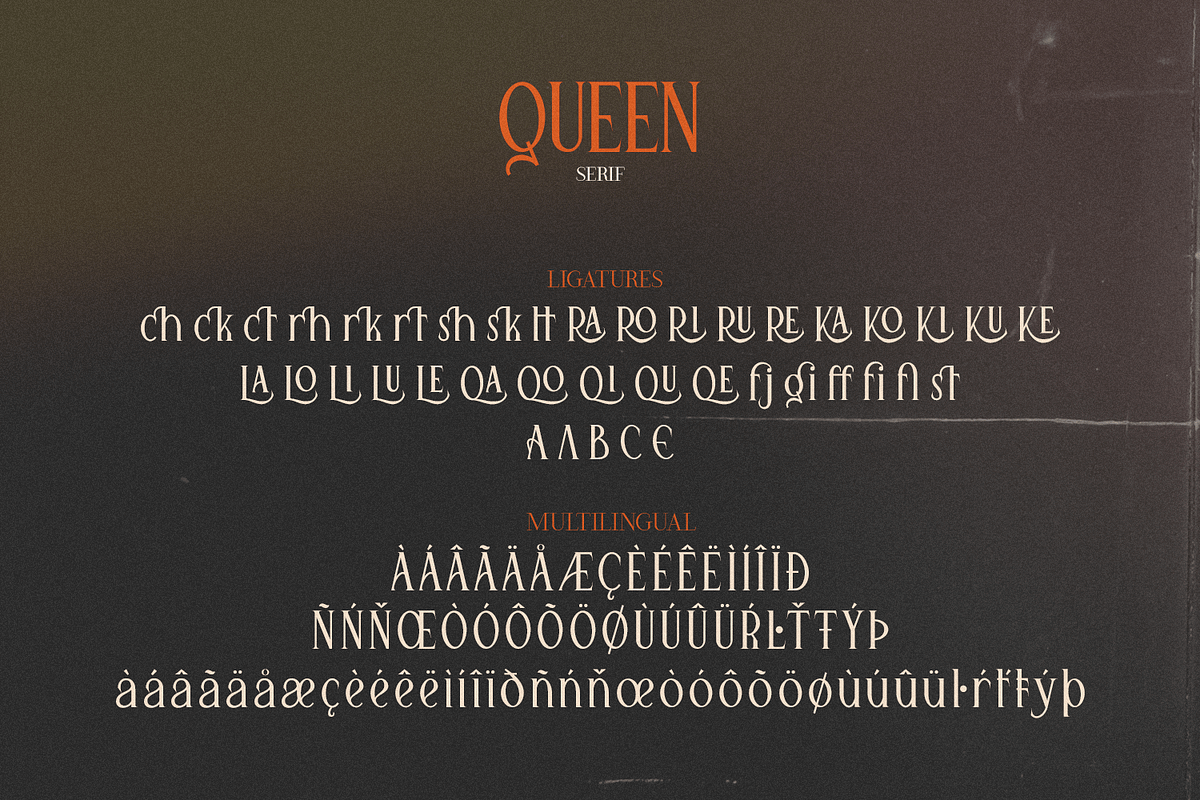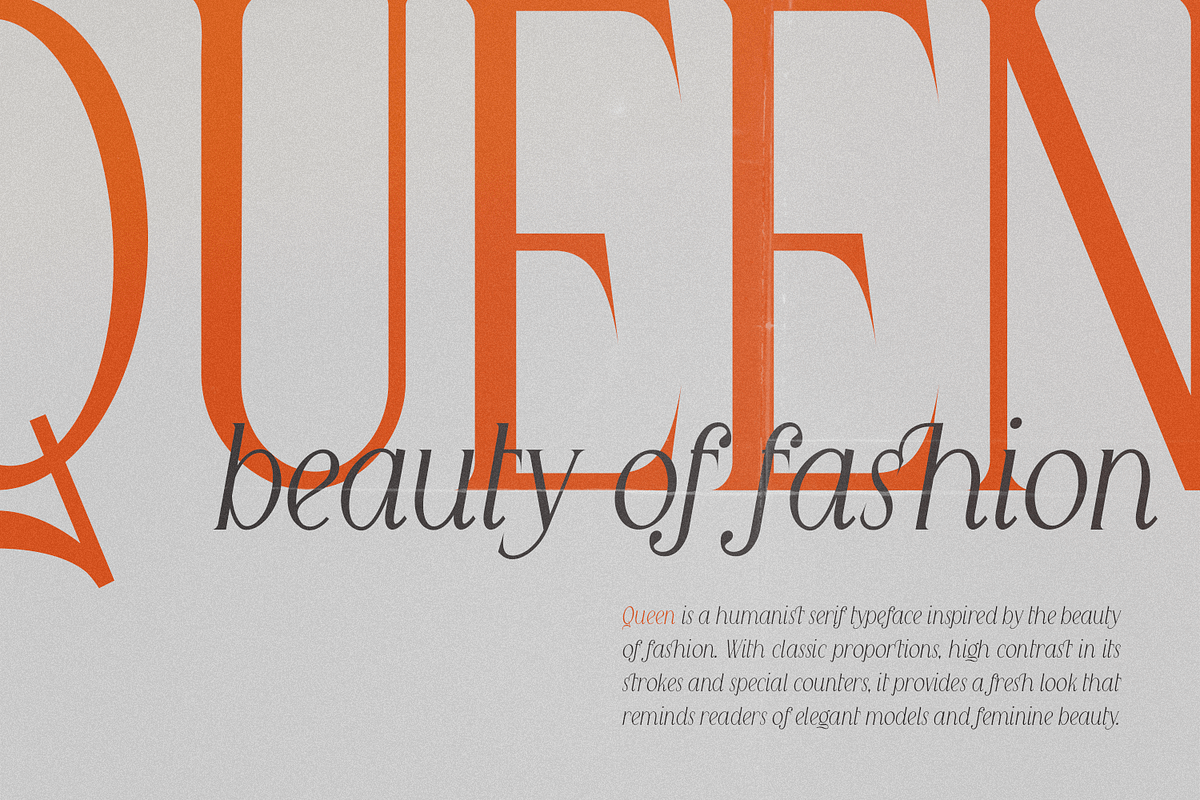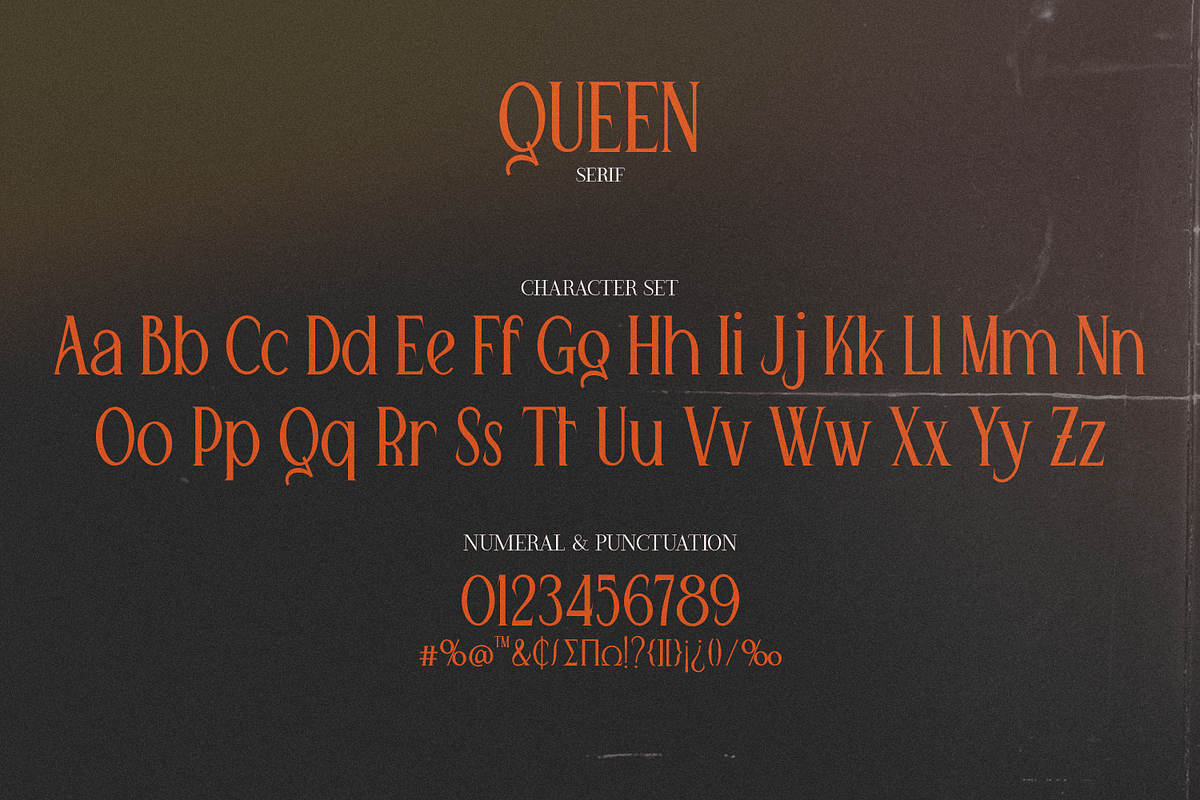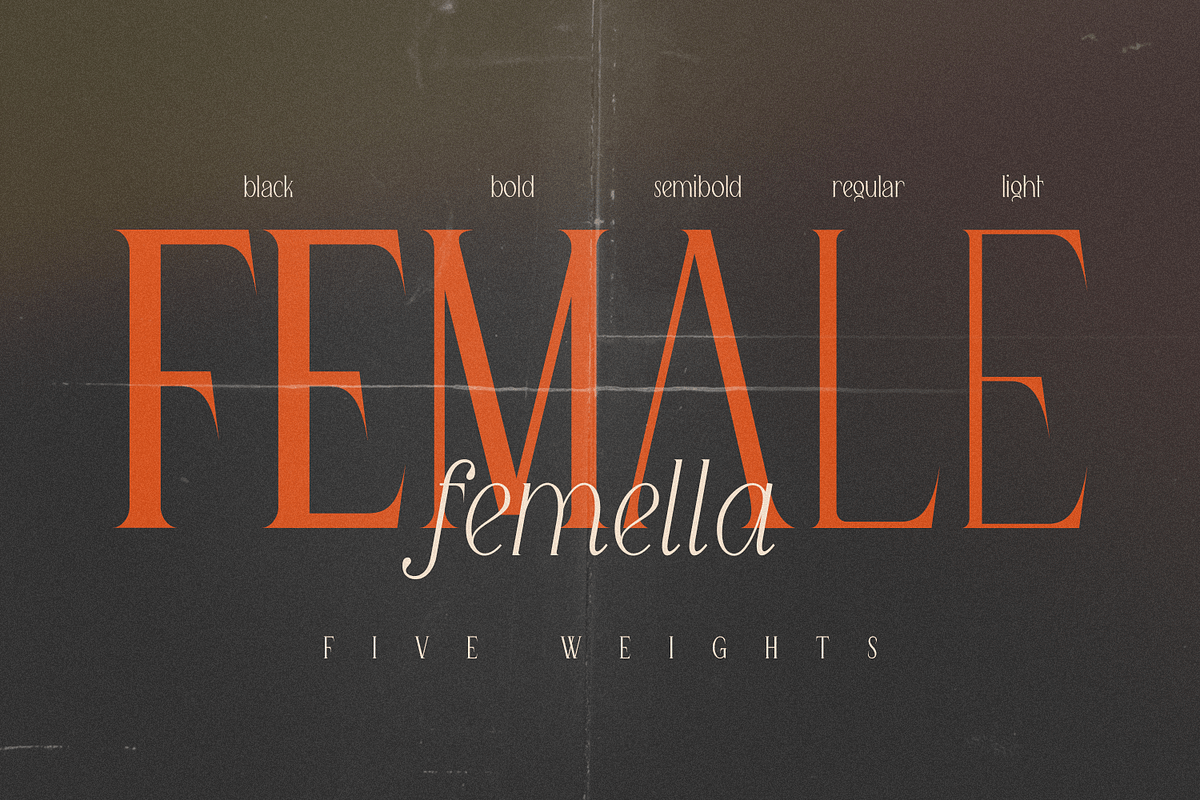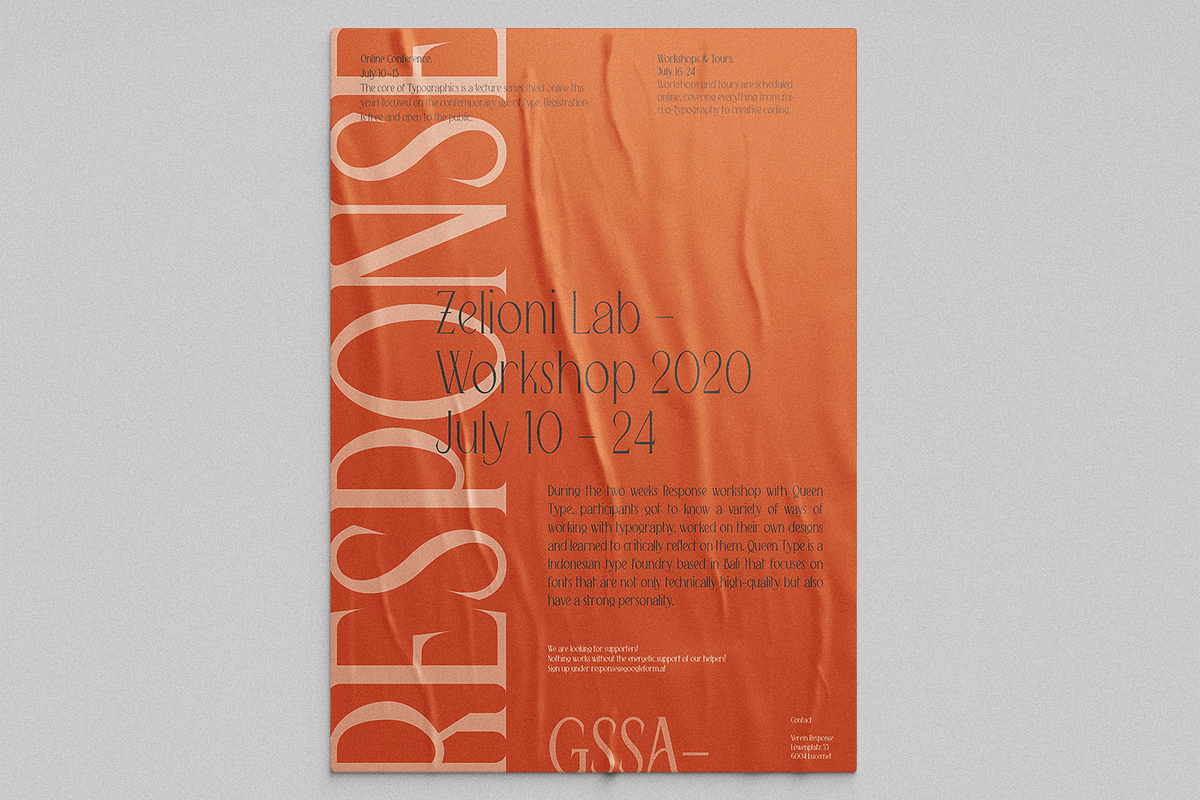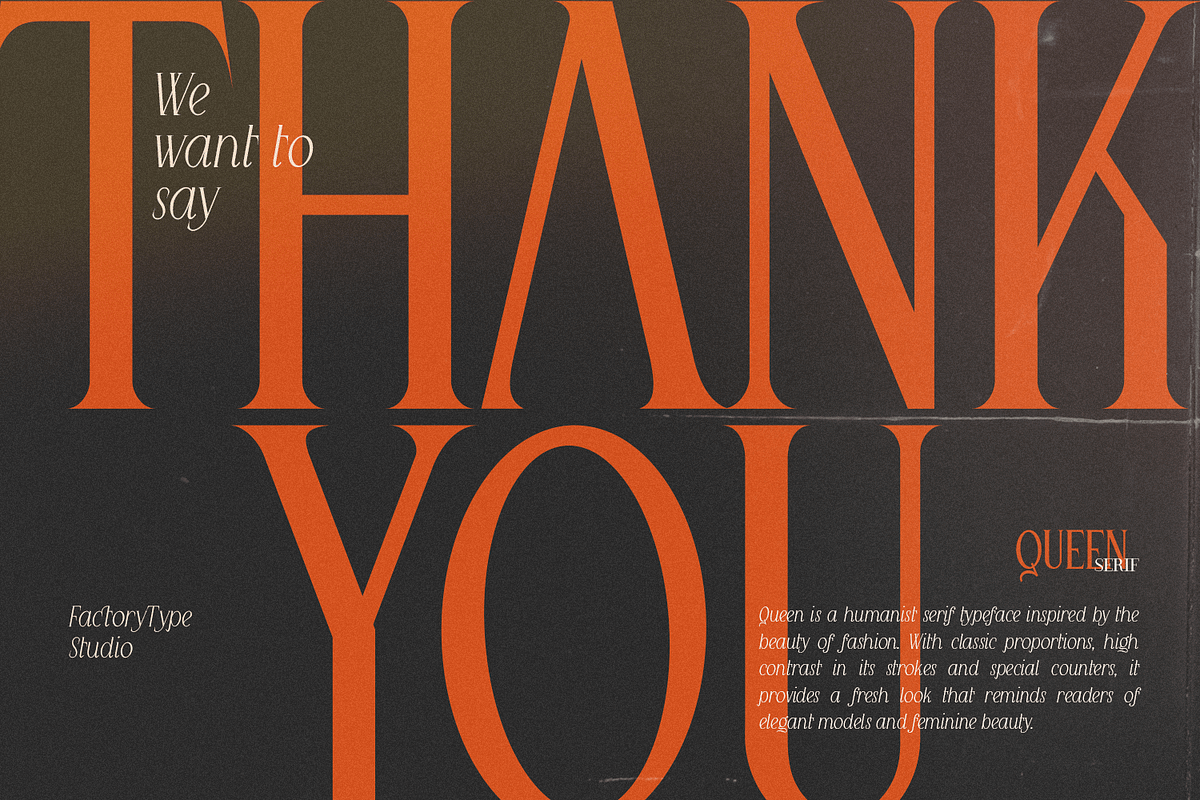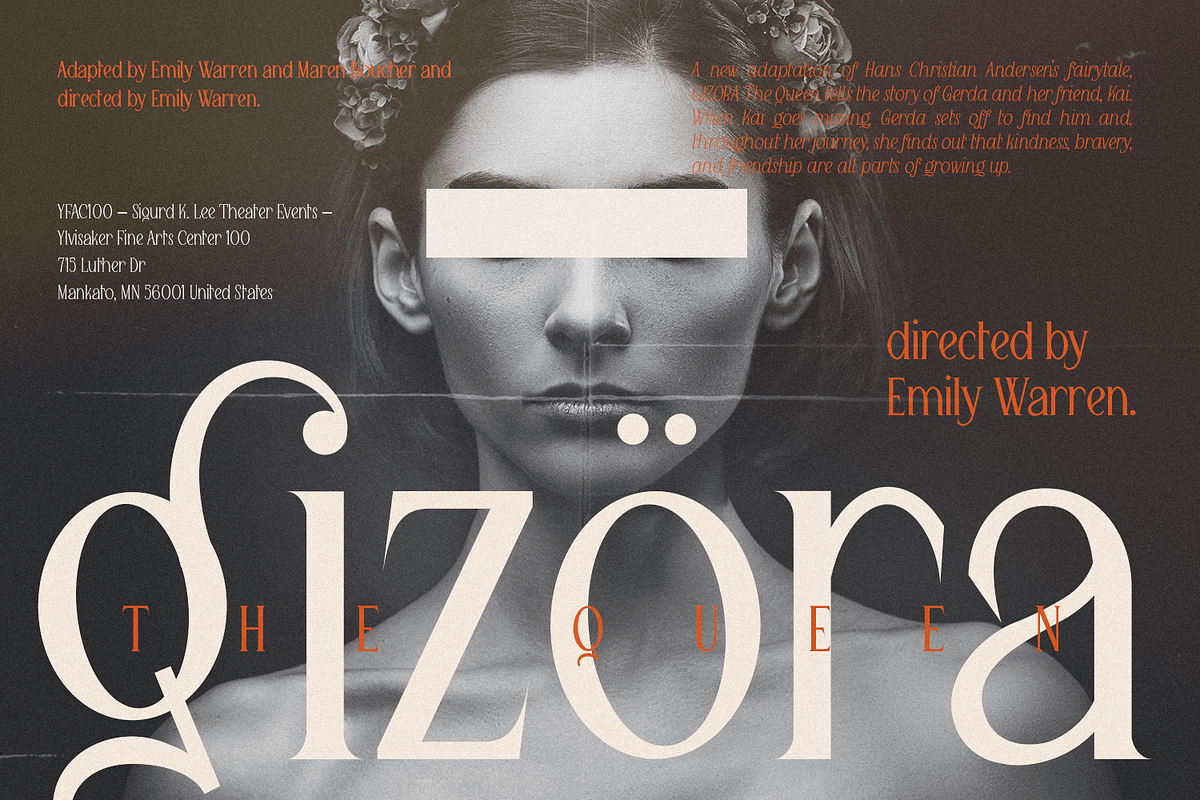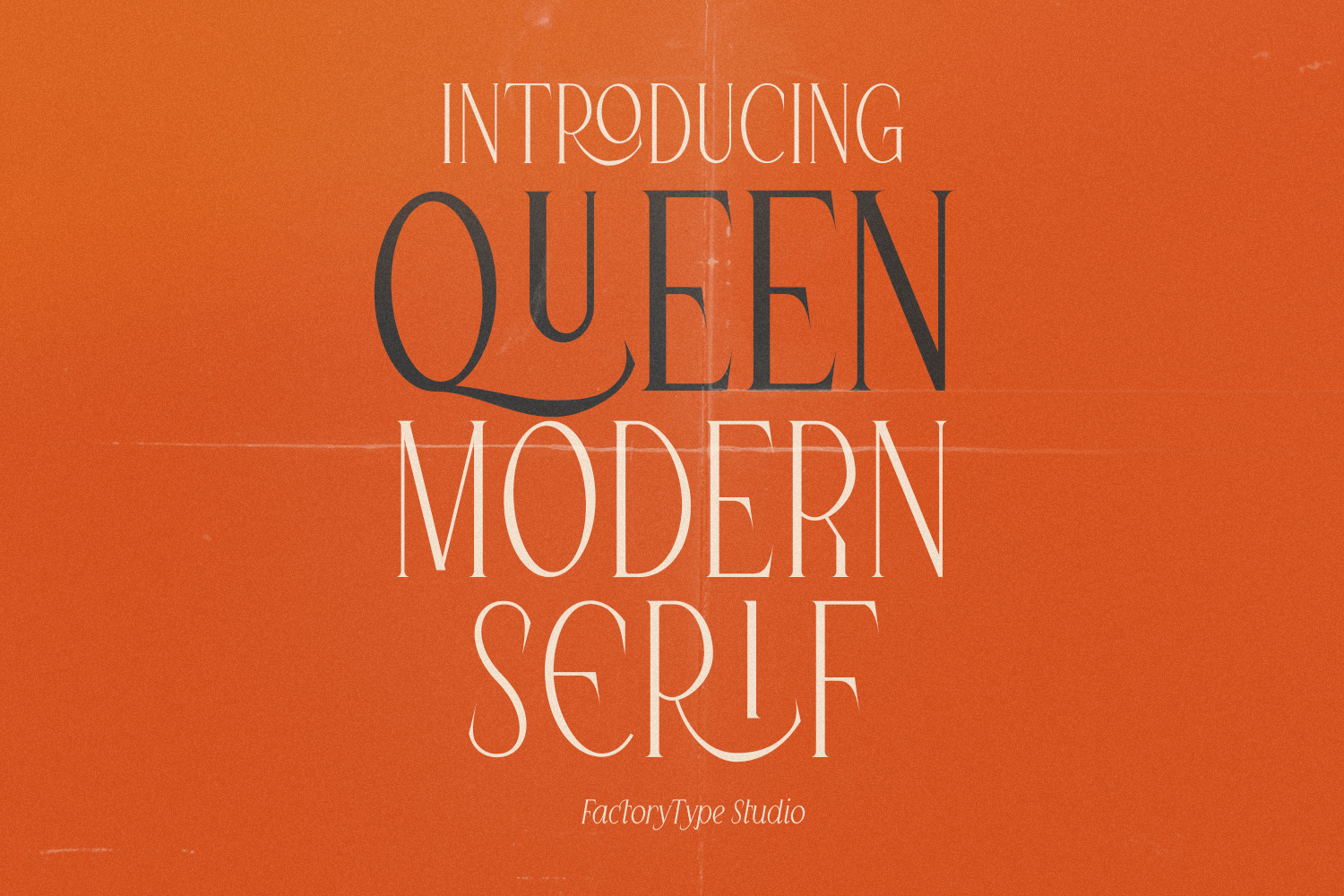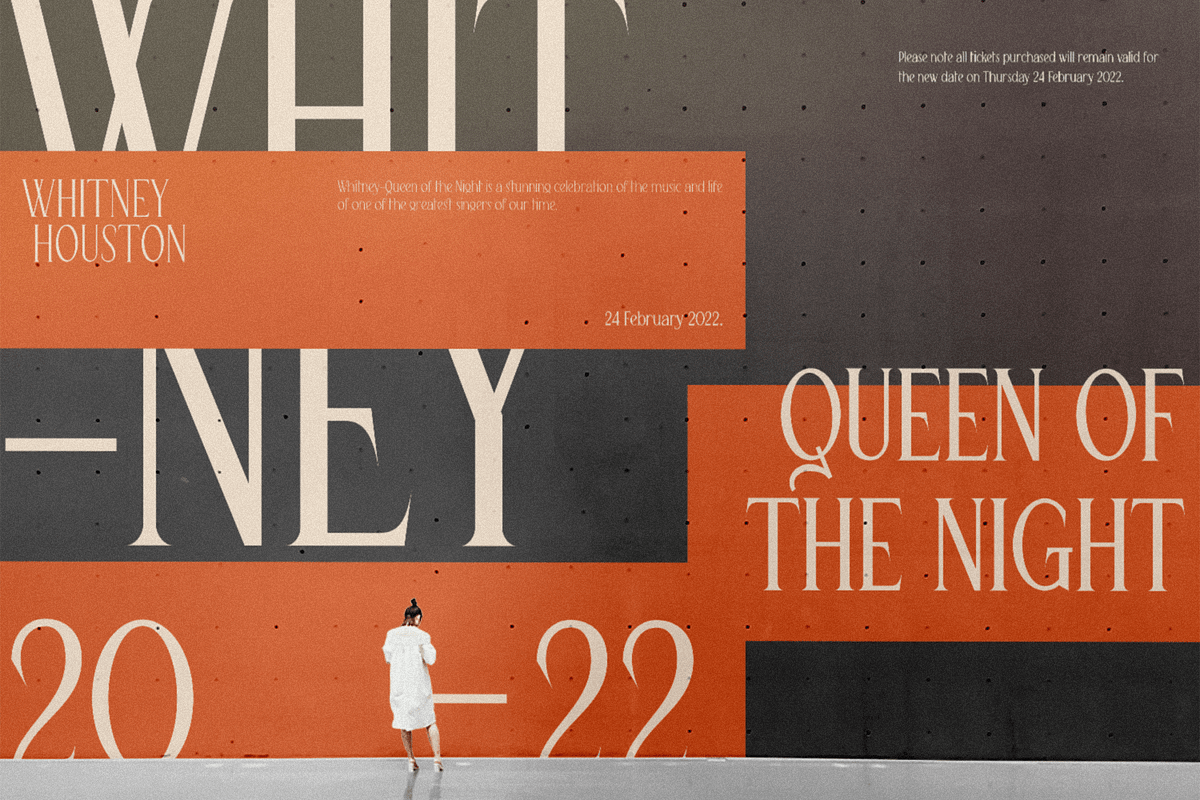
Queen Serif - 10 fonts
Queen Serif is a fashionable serif font family. The combination of modern and vintage elements creates an elegant design. The various weights provide a variety of options for determining the best typographic color for your project. Lighter weights are best for body text, while heavier weights are best for eye-catching headlines. The Ligatures and Italic styles available provide a variety of different characters that give your project design a distinct shape.
- 5 Weights (Light, Regular, Semibold, Bold, Black)
- 2 Styles (Regular and Italic)
- Stylistic Ligatures and Alternate glyps
- Multilingual Support for ä ö ü Ä Ö Ü ...